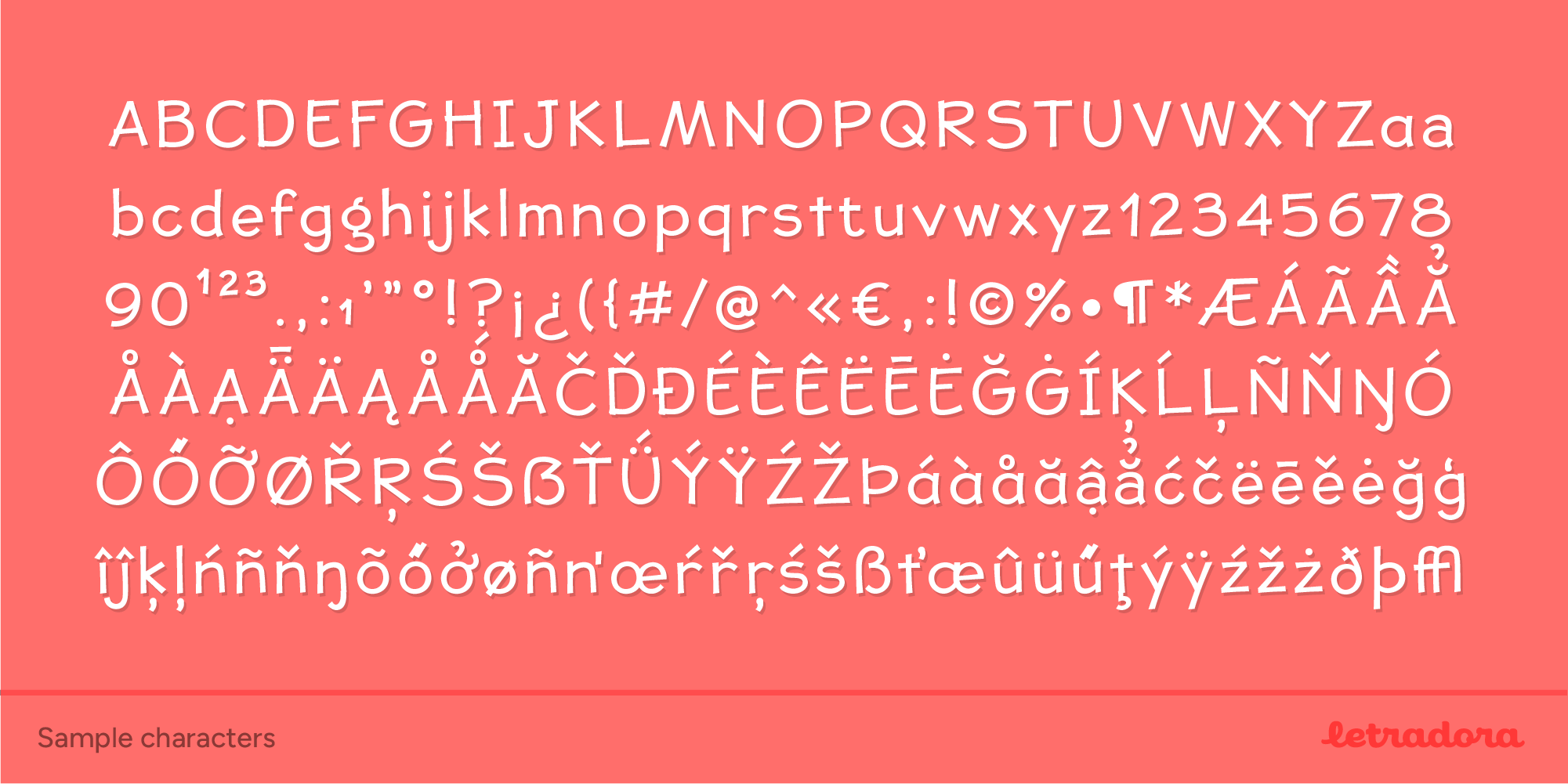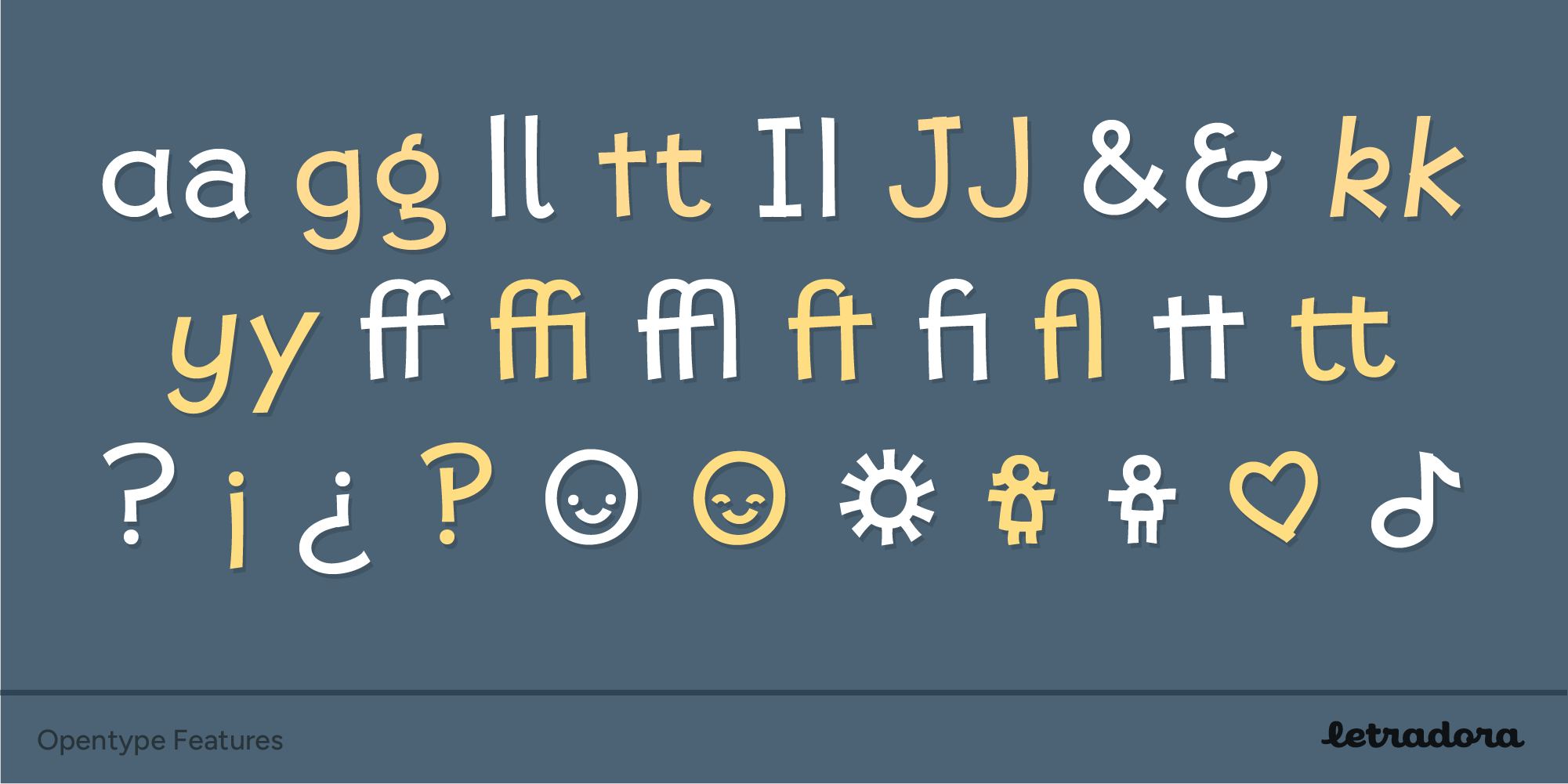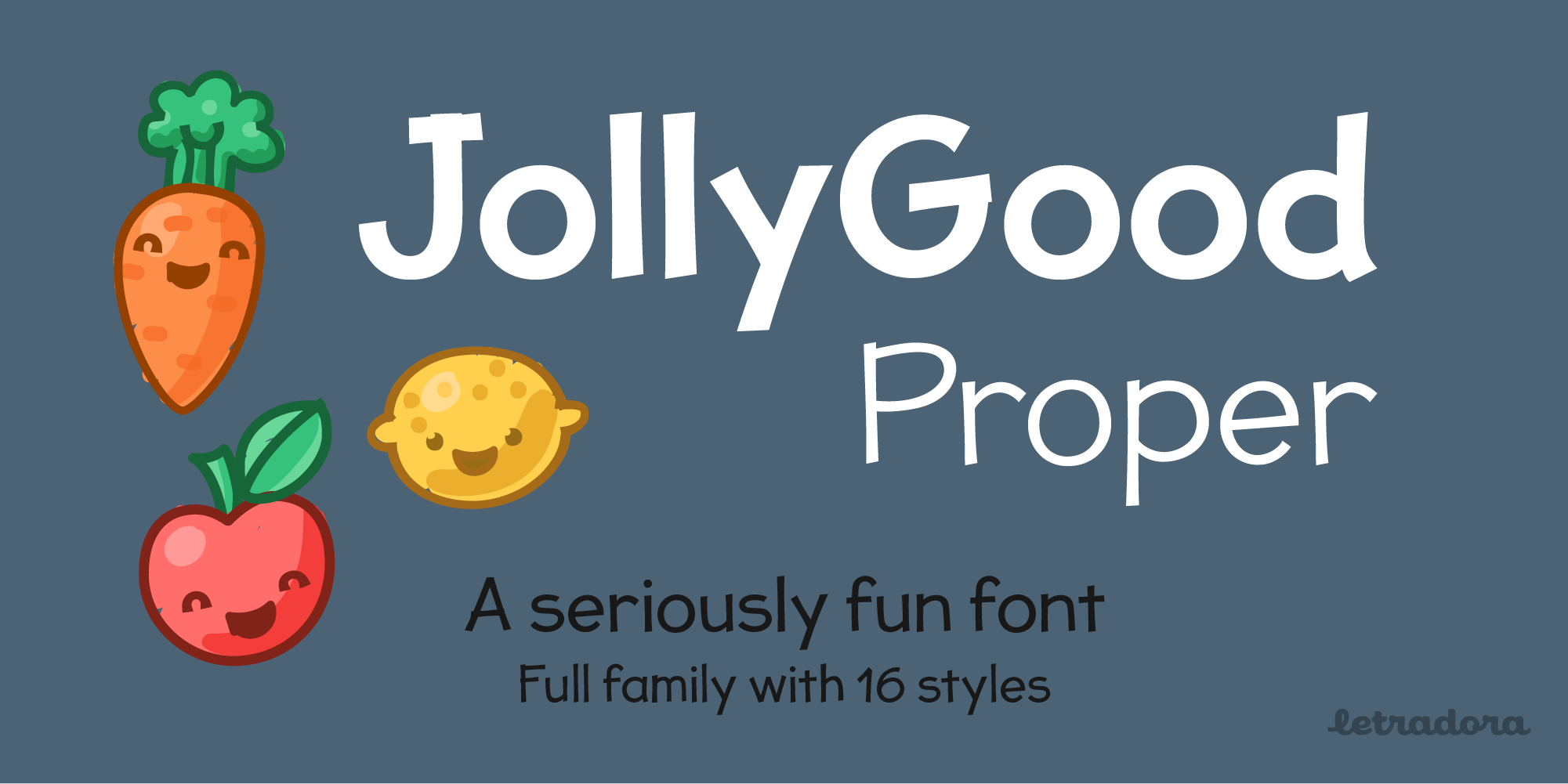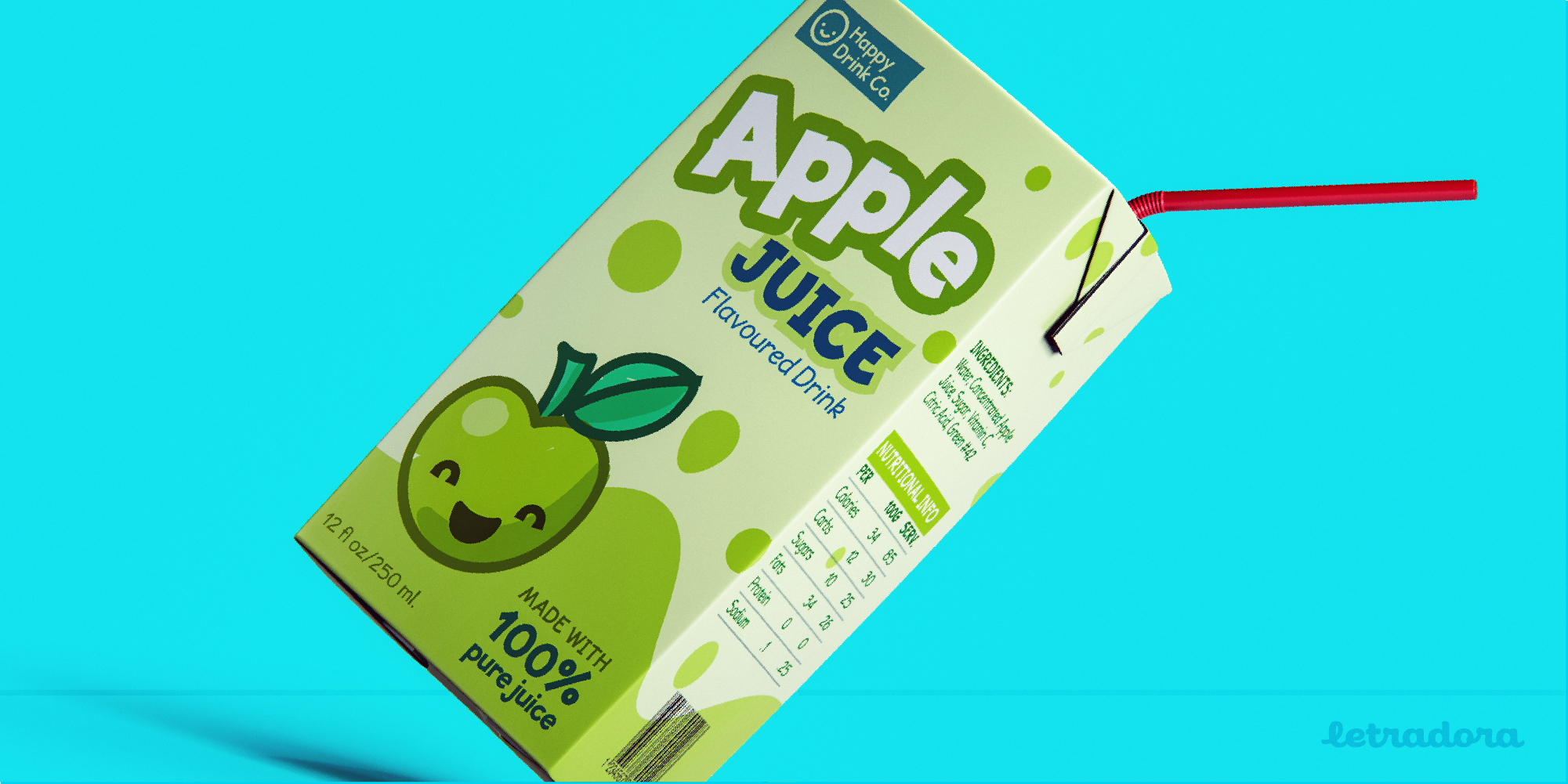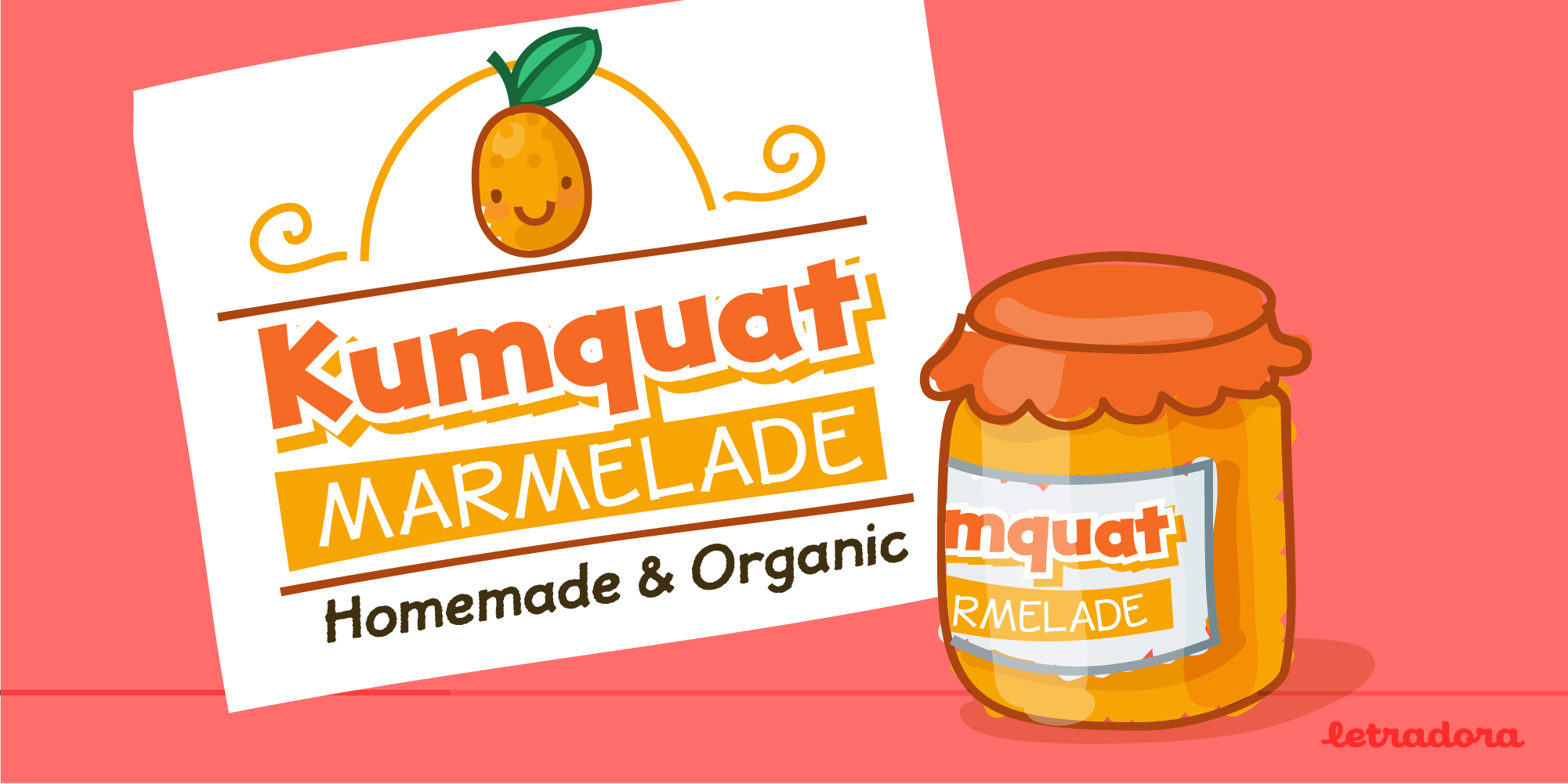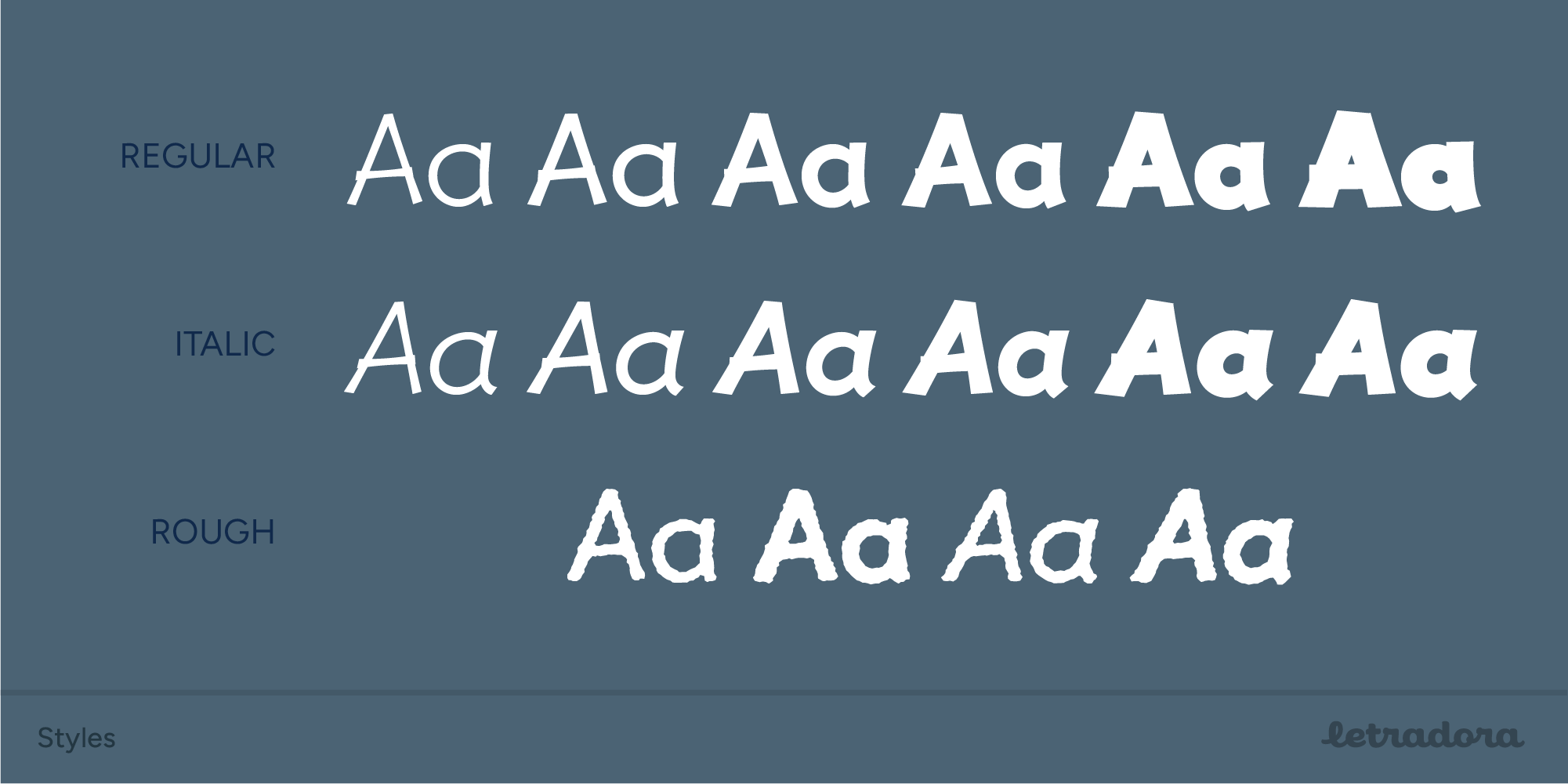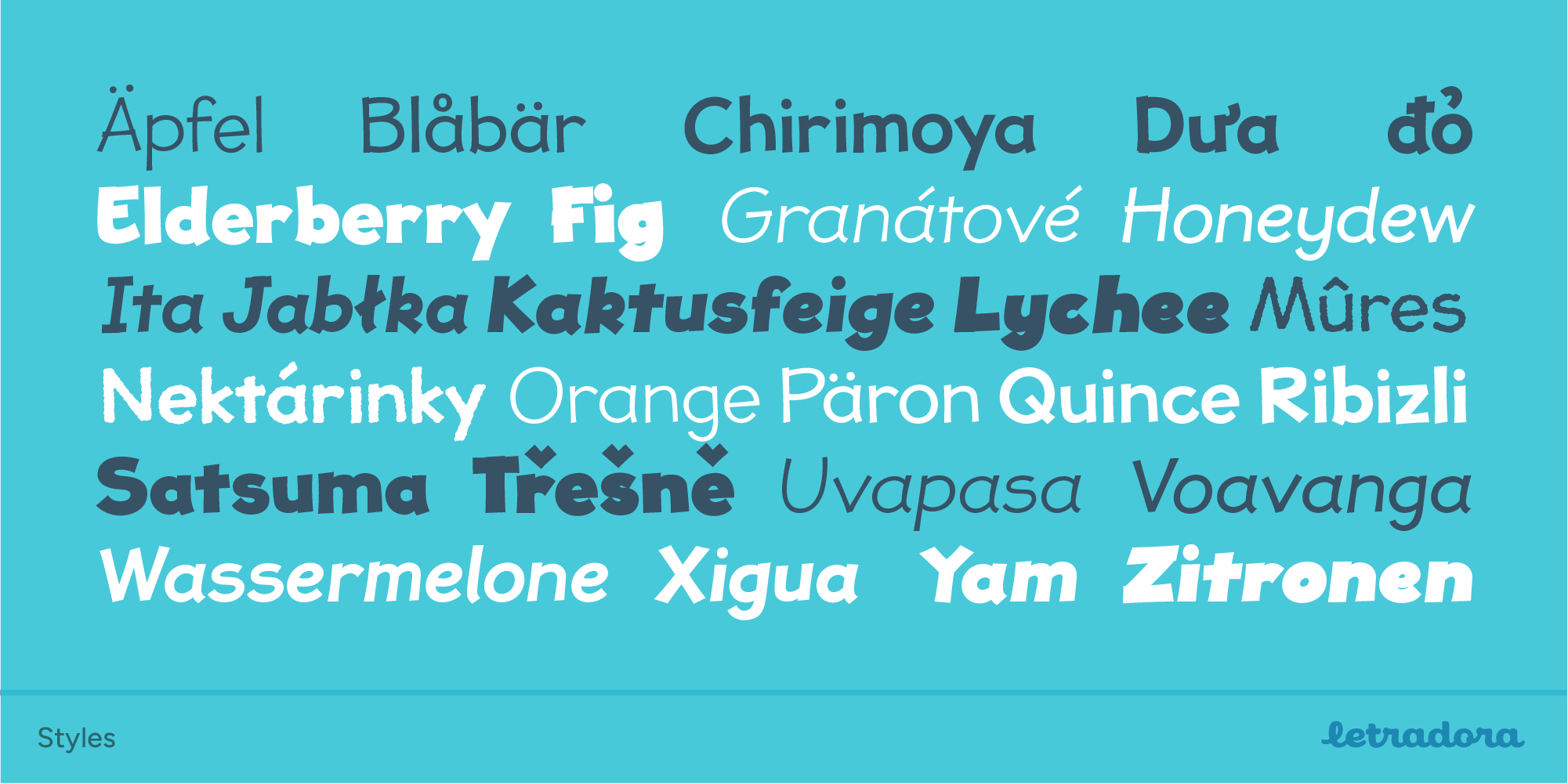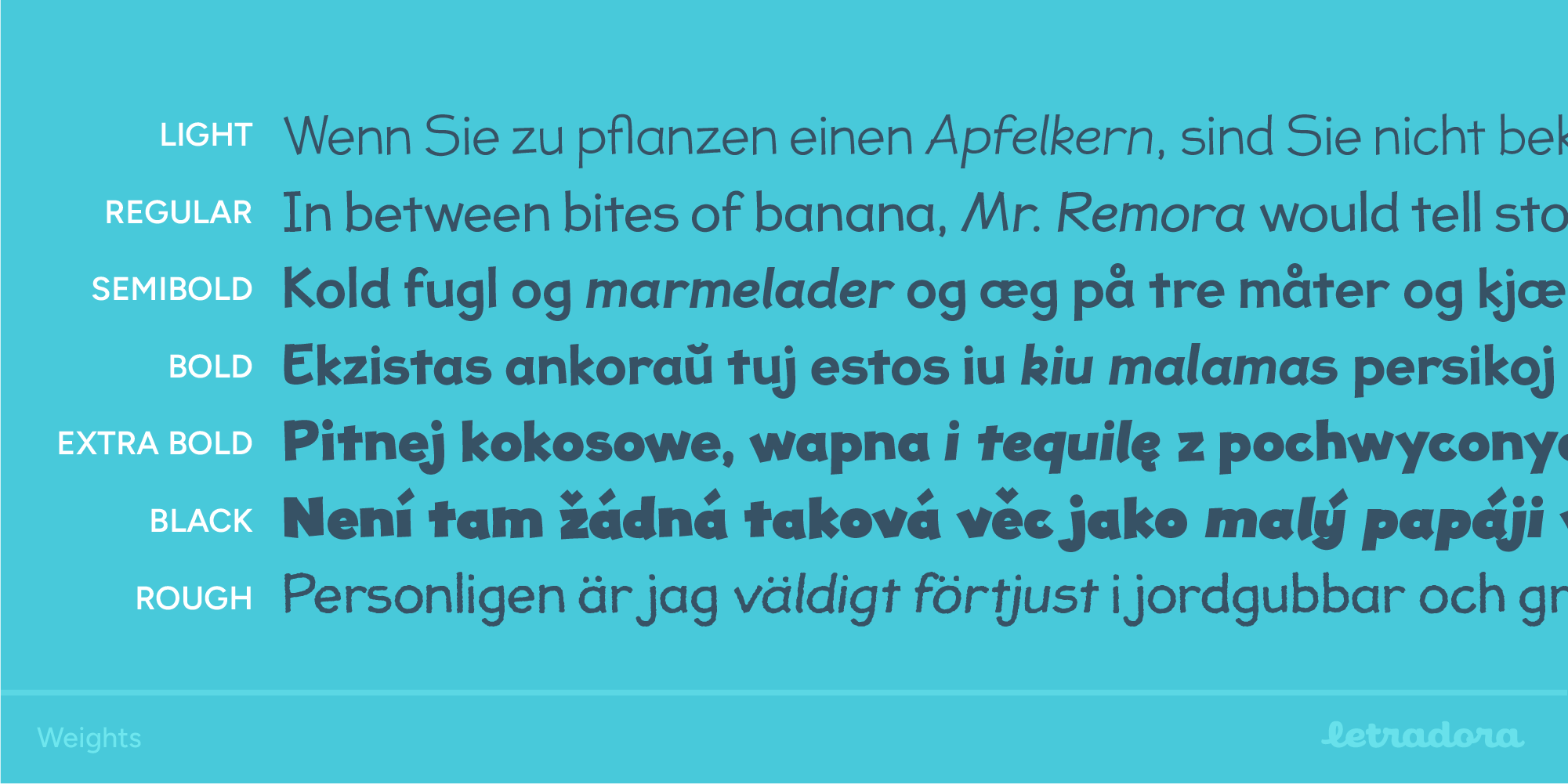
JollyGood Proper is a fun, friendly typeface that is clean enough to use for longer texts. It is a complete family with 7 weights in regular and italic for a total of 16 fonts. It has an amazing character set, with support for most European languages, as well as alternates and ligatures.
JollyGood Proper works well for packaging, children’s books, or wherever you need an informal text without being too cartoony.It is also an excellent replacement for The Comic Font that Must Not Be Named.